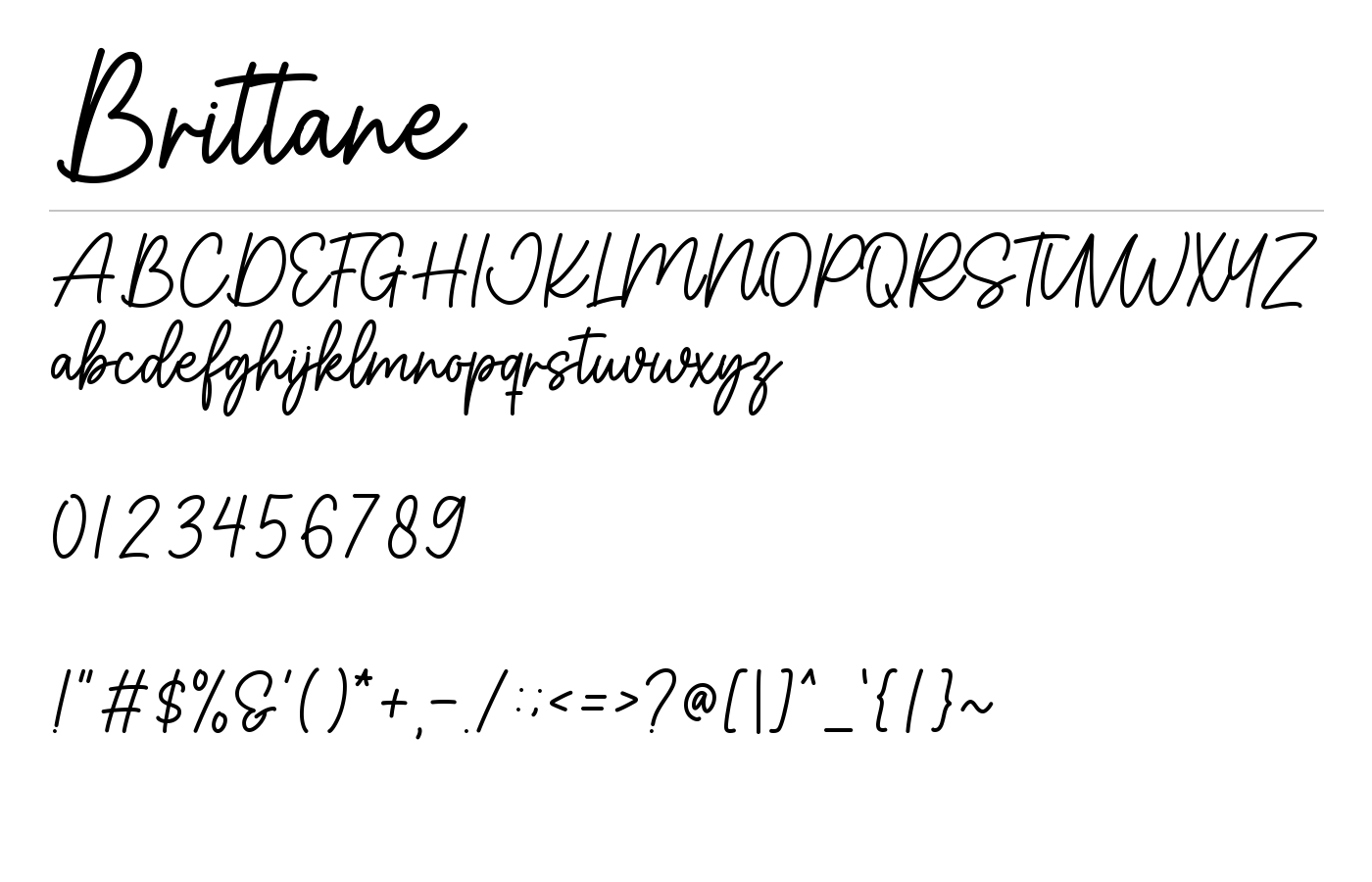
Brittane is a lively, handwritten script font featuring a tall x-height and clean, flowing strokes that create a casual yet elegant feel. Its slim, upright letterforms with smooth curves and consistent weight make it perfect for invitations, branding, and editorial use where a personal, approachable touch is desired. This font works well in both display and smaller text sizes, adding charm and warmth without sacrificing readability.
Brittane Font
About Brittane Font
| Font family | Brittane Font |
| Designer | Risma Ramawi |